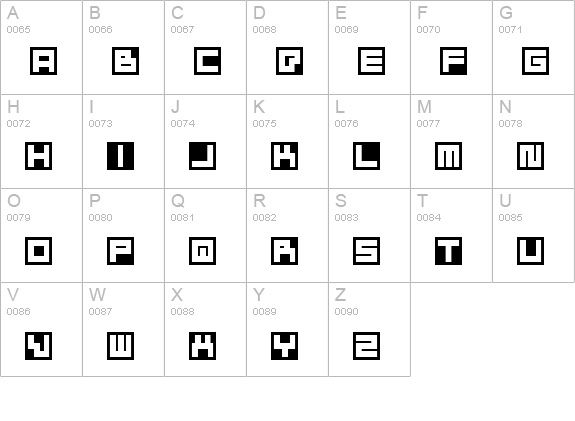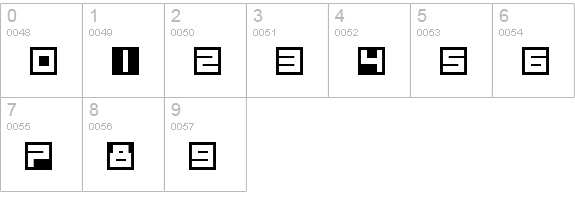
Bustin Jieber Font Details
Introducing the Bustin Jieber font, a stylish and modern typeface that is perfect for adding a touch of personality to your designs. This unique font features a playful yet sophisticated look, making it ideal for a variety of projects such as branding, advertising, and social media graphics. The Bustin Jieber font is available in a variety of weights and styles, allowing you to mix and match to create the perfect combination for your project. Best of all, the Bustin Jieber font is completely free to download at FontsMarket.com. Simply visit the website and start using this eye-catching font in your designs today. Don't miss out on the opportunity to add a fresh and trendy look to your projects with the Bustin Jieber font. Download now and let your creativity shine!